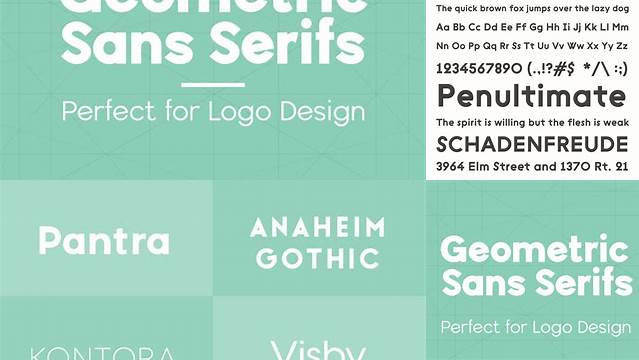
Geometric Sans Serif Fonts: A Complete Guide
Hey guys! Ever wondered about those fonts that look super clean and modern? Chances are, you've stumbled upon a geometric sans serif font. These fonts are all the rage in design, and for good reason. They’re sleek, versatile, and give off a vibe of contemporary sophistication. This guide will dive deep into the world of geometric sans serif fonts, exploring their history, characteristics, and how you can use them to elevate your projects. So, let's get started and unlock the secrets of these stylish typefaces!
What Defines a Geometric Sans Serif Font?
So, what exactly makes a font a geometric sans serif font? It's all about the shapes, my friends! These fonts are built on basic geometric forms like circles, squares, and triangles. Think of it as a mathematical approach to typography. The characters often have a consistent stroke weight and a clean, minimalist aesthetic. This gives them a very structured and balanced look, making them highly readable and visually appealing. In essence, they embody simplicity and precision, which is why they’re so popular in modern design. The core idea is to strip away any unnecessary ornamentation and focus on the essential forms that make up each letter. This results in a typeface that feels both timeless and contemporary. When you’re looking at a geometric sans serif font, pay attention to how the curves and straight lines interact – it’s the harmony of these elements that gives these fonts their distinctive character. These types of fonts often evoke feelings of efficiency, clarity, and innovation, making them a perfect choice for businesses and brands that want to project a modern and trustworthy image. Plus, they work wonderfully in both print and digital contexts, adding to their versatility and widespread use.
The History and Evolution of Geometric Sans Serif Fonts
To truly appreciate geometric sans serif fonts, it's cool to take a peek at their history. These fonts have roots that go way back to the early 20th century, a time when the Bauhaus movement was shaking things up in art and design. The Bauhaus school, with its focus on functionality and simplicity, played a huge role in shaping the aesthetic we now associate with geometric sans serifs. Key figures like Herbert Bayer and Paul Renner were pioneers in this field, creating typefaces that were radical for their time. Renner's Futura, released in 1927, is arguably the most iconic example. Its clean lines and perfect circles became a symbol of the modern era. Other notable early geometric sans serifs include Erbar and Kabel, each contributing to the evolving style. These fonts were a reaction against the ornate and decorative styles of the past, reflecting a desire for a more streamlined and efficient form of communication. The influence of these early typefaces can still be seen in contemporary designs, proving their enduring appeal and impact on the world of typography. Over the years, geometric sans serif fonts have continued to evolve, adapting to new technologies and design trends, but the core principles of simplicity and geometric precision remain at their heart. This rich history adds depth to their story, making them not just a design choice, but a piece of typographic history.
Key Characteristics of Geometric Sans Serif Typefaces
Let’s break down the key characteristics of geometric sans serif typefaces. The most defining feature is, of course, their reliance on geometric shapes. You'll notice a strong emphasis on perfect circles, clean lines, and consistent stroke weights. This gives them a very structured and uniform appearance. Another key characteristic is their simplicity. There are no serifs (the little feet at the end of strokes) or other decorative elements to distract the eye. This simplicity contributes to their excellent readability, especially in digital environments. The letterforms often have a monolinear quality, meaning the strokes are of a consistent thickness throughout the character. This adds to their clean and modern look. The x-height (the height of the lowercase letters) is often relatively high, which further enhances readability. Additionally, geometric sans serif fonts tend to have a very balanced and harmonious feel, thanks to the careful attention to proportion and spacing. Each character is designed to work seamlessly with its neighbors, creating a cohesive and visually pleasing text block. These characteristics combine to make geometric sans serif fonts incredibly versatile, suitable for a wide range of applications, from logos and headlines to body text and user interfaces. The consistent and clean nature of these fonts allows designers to create a sense of order and clarity in their work, making them a favorite choice for projects that require a professional and modern aesthetic.
Popular Examples of Geometric Sans Serif Fonts
Okay, let's talk about some popular examples of geometric sans serif fonts that you've probably seen around. First up, we have Futura, designed by Paul Renner in 1927. This font is like the OG geometric sans serif, and it's still widely used today. Its clean lines and perfect circles give it a timeless appeal. Then there's Gotham, a font that gained fame for its use in Barack Obama's 2008 presidential campaign. Gotham has a strong, confident presence, making it perfect for branding and headlines. Another classic is Avenir, designed by Adrian Frutiger. Avenir is a bit softer and more humanist than Futura, making it a great choice for body text. Montserrat is another favorite, often used in web design for its excellent readability on screens. Designed by Julieta Ulanovsky, Montserrat draws inspiration from the urban typography of Buenos Aires. Lastly, we can't forget about Circular, a font that's become super popular in tech branding, thanks to its use by companies like Spotify and Airbnb. Each of these fonts has its own unique personality, but they all share the core characteristics of geometric sans serif fonts: simplicity, clarity, and a modern aesthetic. By familiarizing yourself with these typefaces, you'll start to develop a better eye for identifying and appreciating the subtle nuances of geometric sans serif font design.
Where to Use Geometric Sans Serif Fonts in Design
So, where can you actually use geometric sans serif fonts in your design projects? The awesome thing about these fonts is their versatility. They work great in a ton of different contexts. For logos and branding, they convey a sense of modernity and sophistication. Think about brands like Adidas or Volkswagen – their logos use geometric sans serifs to project a clean and confident image. In headlines and titles, these fonts grab attention without being too flashy. Their clarity and strong visual presence make them perfect for making a statement. Geometric sans serif fonts are also excellent for body text, especially in digital environments. Their high readability ensures that your content is easy to digest, whether it's on a website, app, or e-reader. They're also a solid choice for UI/UX design, where clarity and legibility are paramount. Many tech companies use geometric sans serifs in their interfaces to create a user-friendly experience. Plus, these fonts are fantastic for print materials like posters, brochures, and business cards. Their clean aesthetic ensures that your designs look professional and polished. Whether you're designing a cutting-edge website or a classic print ad, geometric sans serif fonts offer a reliable and stylish solution. Their adaptability and timeless appeal make them a staple in any designer's toolkit, ensuring that you can communicate your message effectively and with a touch of contemporary flair.
Combining Geometric Sans Serif Fonts with Other Typefaces
Mixing and matching fonts can be tricky, but when you nail it, the results are stunning. So, how do you go about combining geometric sans serif fonts with other typefaces? One classic approach is to pair a geometric sans serif with a serif font. The contrast between the clean lines of the sans serif and the more traditional serifs can create a really sophisticated look. Think of using a bold geometric sans serif for your headlines and a classic serif like Garamond or Times New Roman for your body text. This combination is both readable and visually engaging. Another strategy is to pair a geometric sans serif with a more humanist sans serif font. Humanist sans serifs have a slightly warmer and more organic feel than geometric ones, so the contrast can add some visual interest without being too jarring. Avenir and Open Sans are great choices for this. You can also play with different weights and styles within the geometric sans serif font family itself. For example, you might use a bold weight for your headlines and a lighter weight for your body text. This creates a visual hierarchy and helps guide the reader through your content. The key is to experiment and see what works best for your particular project. Pay attention to the mood and message you're trying to convey, and choose fonts that complement each other in both style and readability. With a little practice, you'll be able to create typographic pairings that are both beautiful and effective, enhancing the overall impact of your design.
The Psychology Behind Geometric Sans Serif Fonts
Fonts aren't just about how they look; they also carry psychological weight. The psychology behind geometric sans serif fonts is pretty fascinating. These fonts tend to evoke feelings of modernity, efficiency, and trustworthiness. Their clean lines and simple shapes give them a very contemporary feel, which is why they're often used by tech companies and brands that want to project a cutting-edge image. The lack of ornamentation in geometric sans serif fonts communicates a sense of clarity and directness. There's nothing fussy or distracting about them, which can make your message feel more straightforward and reliable. This is why you often see them used in corporate communications and branding materials. The structured nature of these fonts can also convey a sense of order and precision. They’re the typographic equivalent of a well-organized office – everything is in its place. This can be particularly effective in fields like finance and engineering, where accuracy and attention to detail are valued. However, it’s worth noting that the psychological impact of a font can also depend on the context and the specific design. A very bold and heavy geometric sans serif might feel authoritative and assertive, while a lighter weight might feel more delicate and understated. The color, layout, and surrounding imagery will also play a role in the overall impression. So, when you're choosing a font, think about the message you want to send and how the typeface can help you achieve that. Geometric sans serif fonts are a powerful tool for shaping perceptions, but they work best when used thoughtfully and strategically.
Common Mistakes to Avoid When Using Geometric Sans Serif Fonts
Alright, let's chat about some common pitfalls to dodge when you're working with geometric sans serif fonts. These fonts are awesome, but like any design tool, they can be misused. One frequent blunder is overusing them. Just because geometric sans serifs are modern and versatile doesn't mean you should slap them on every project. Too much of a good thing can make your designs feel monotonous and bland. Another mistake is choosing a geometric sans serif font that's not quite right for the context. For example, a super bold and angular typeface might be perfect for a tech startup's logo, but it could feel out of place in a children's book. Think about the tone and message you want to convey and pick a font that aligns with that. Another common issue is poor pairing. Geometric sans serif fonts can work beautifully with other typefaces, but not if they clash. Avoid pairing them with fonts that are too similar or too different. Look for fonts that create a pleasing contrast without feeling jarring. Legibility is also a key concern. Some geometric sans serif fonts, especially those with very tight letter spacing or unusual letterforms, can be difficult to read, particularly in small sizes or long blocks of text. Always test your font choices to make sure they're easy on the eyes. Finally, pay attention to the details. Kerning (the spacing between individual letters) and leading (the spacing between lines of text) can make a huge difference in the overall appearance of your typography. Take the time to fine-tune these settings to ensure your text looks polished and professional. By avoiding these common mistakes, you can harness the power of geometric sans serif fonts to create truly effective and visually appealing designs.
Kerning and Letter Spacing in Geometric Sans Serif Fonts
Kerning and letter spacing are critical aspects of typography that significantly impact the visual appeal and readability of any font, including geometric sans serif fonts. Kerning refers to the adjustment of space between individual letter pairs, while letter spacing, also known as tracking, refers to the uniform adjustment of space between all letters in a word or block of text. In geometric sans serif fonts, which are characterized by their clean lines and precise forms, proper kerning and letter spacing are particularly important. The consistent shapes and monolinear strokes of these fonts can make any inconsistencies in spacing more noticeable. Poorly kerned or spaced geometric sans serif fonts can appear unbalanced, disjointed, or difficult to read. Effective kerning and letter spacing create a harmonious and balanced visual rhythm, allowing the letters to flow seamlessly and enhance the overall readability of the text. When working with geometric sans serif fonts, it's often necessary to make manual kerning adjustments to achieve optimal results. This involves carefully examining letter pairs that may appear too close or too far apart and adjusting the spacing accordingly. Common letter pairs that may require kerning adjustments include